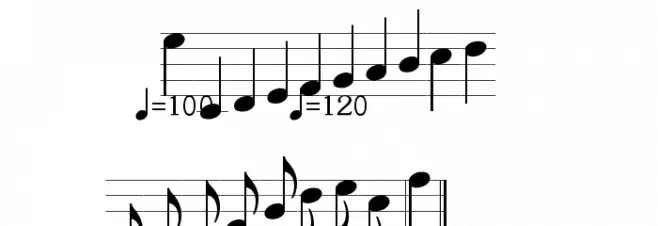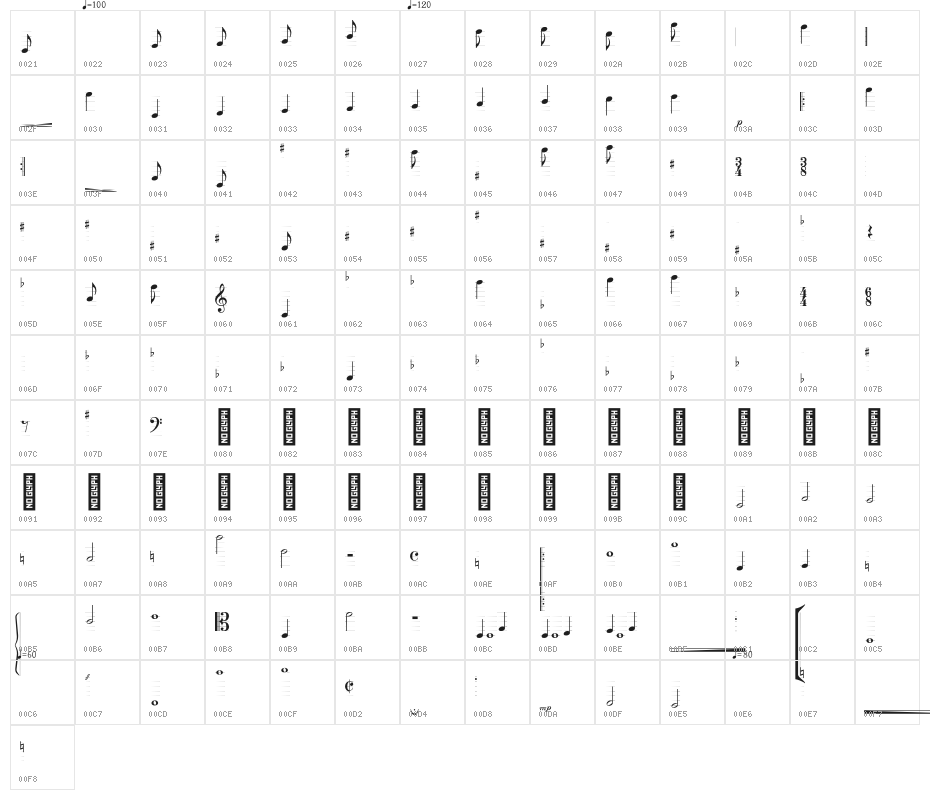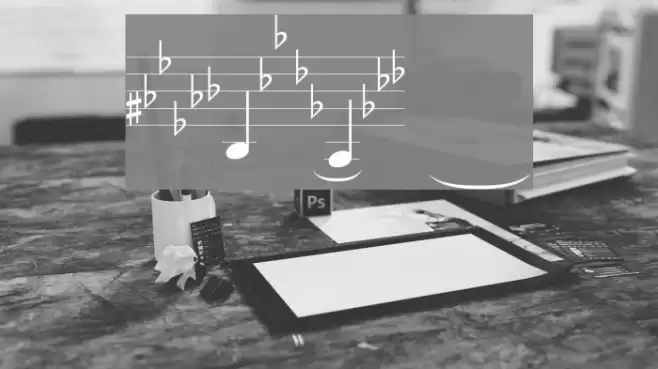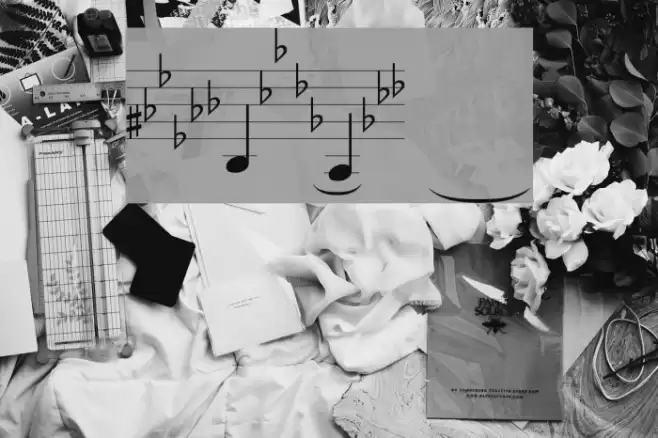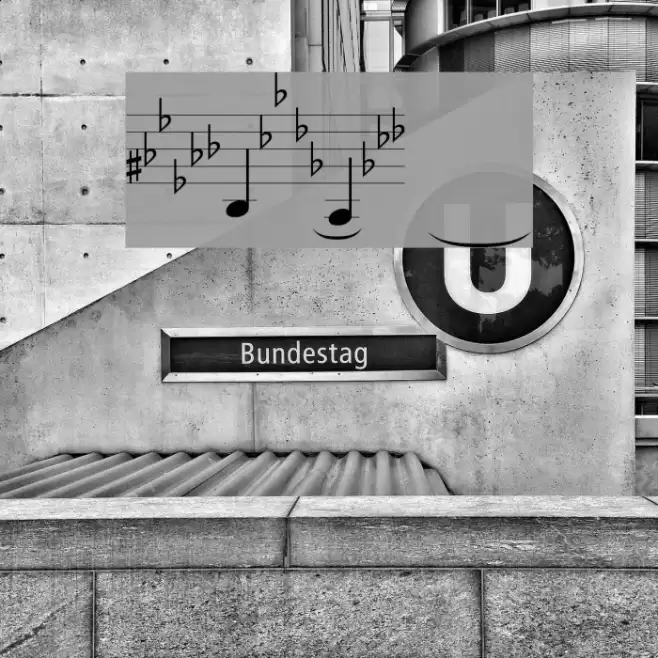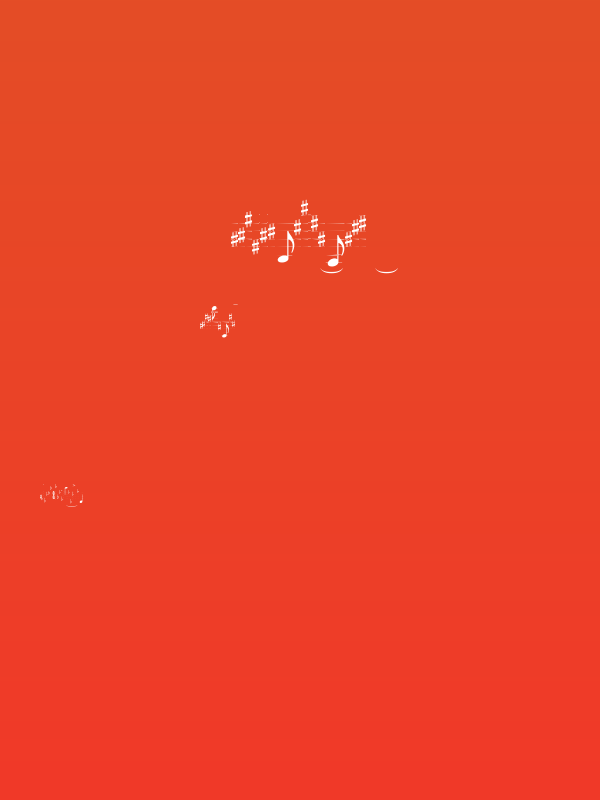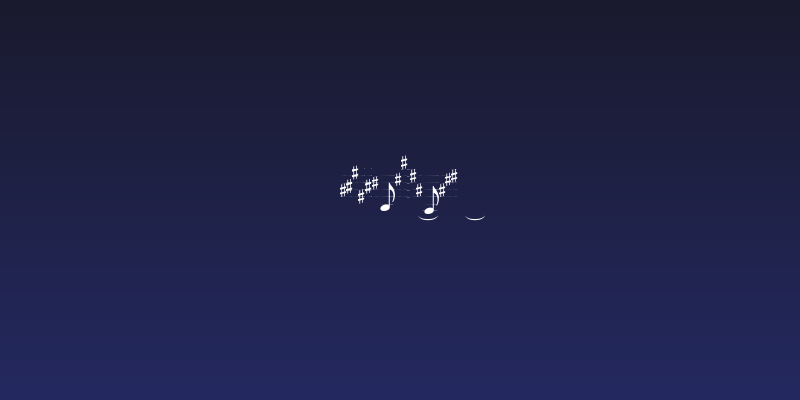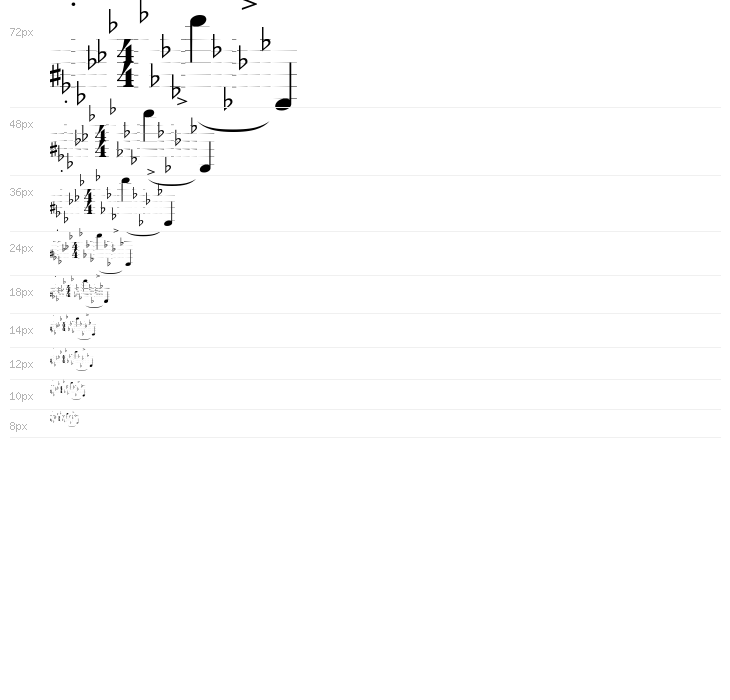
TypeMyMusic Notation Font
TypeMyMusic Notation Description
A specialized music notation font featuring clear, bold noteheads, accidentals, time signatures, staff lines, and tempo markings, designed for accurate and readable sheet music reproduction.
| Overall Style | Functional, Classic |
| Use Case | Music notation, Educational materials, Scores |
| Proposed Projects | Sheet music publishing, music education materials, digital music notation software, instructional books. |